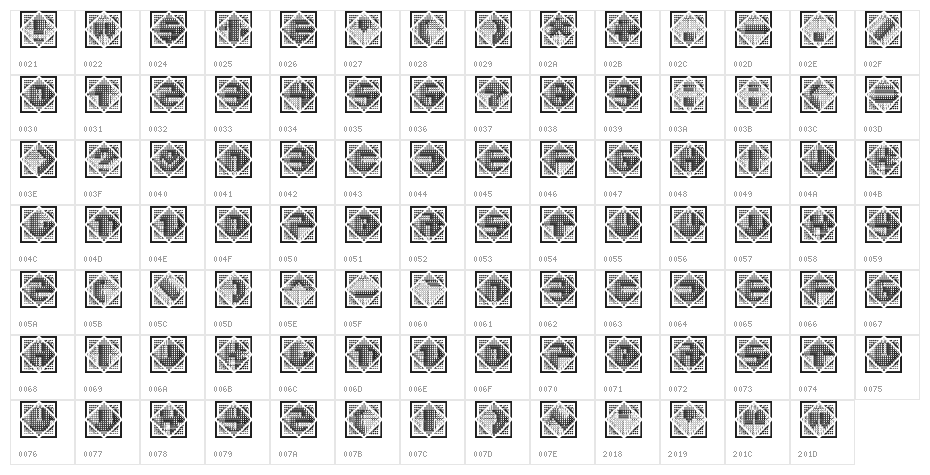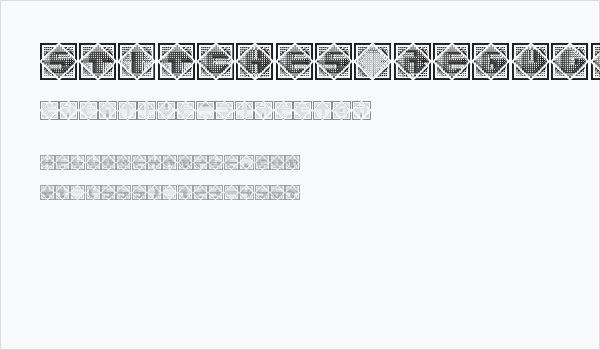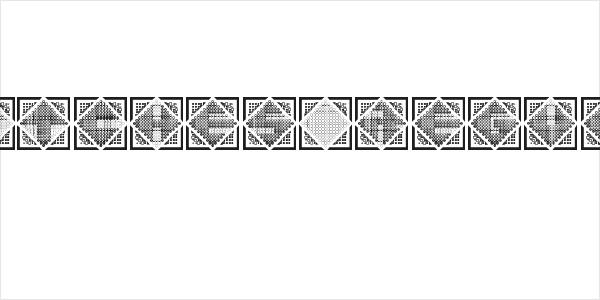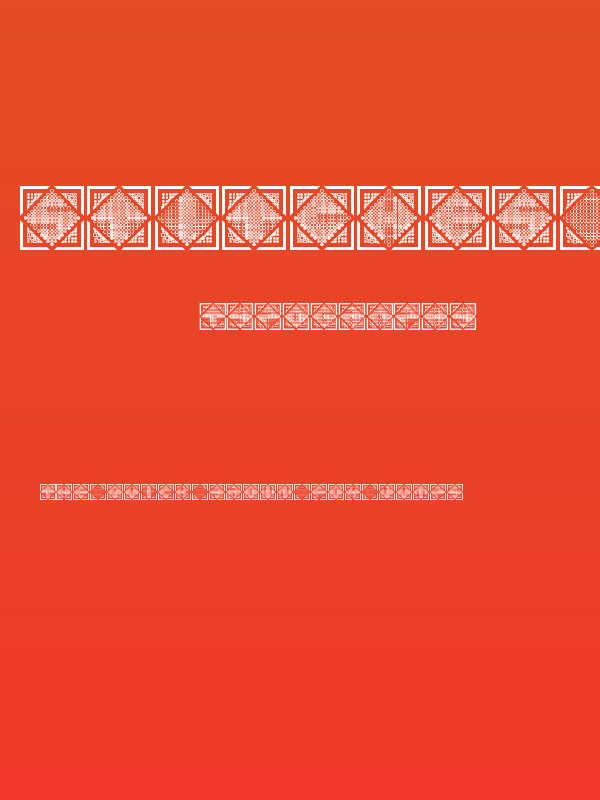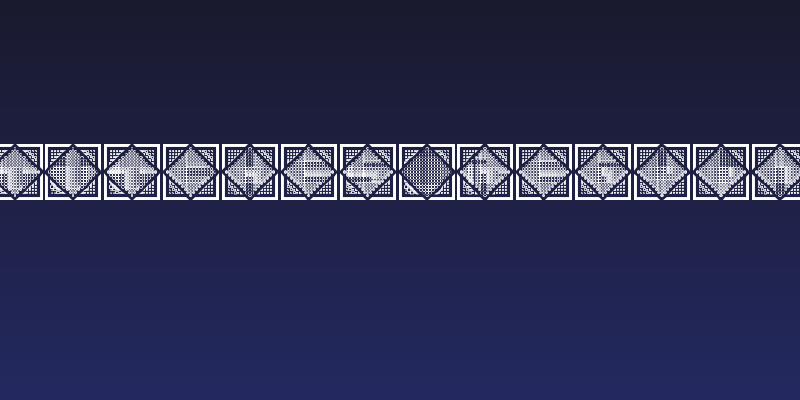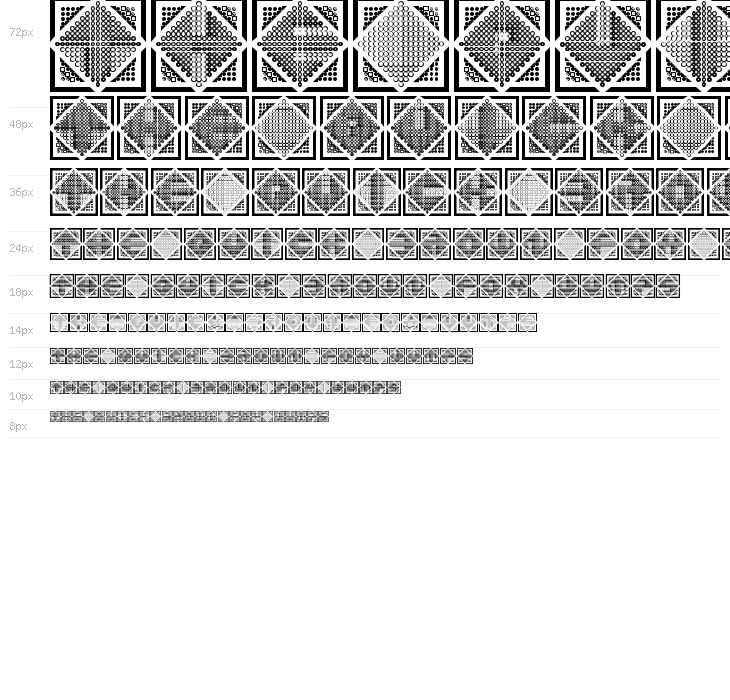
Stitches Regular Font
Stitches Regular Description
This design features a highly decorative and intricate pattern, resembling a series of stitched or woven elements. Each character is enclosed within a square frame, with a complex arrangement of lines and shapes that create a textured, almost fabric-like appearance. The overall aesthetic is reminiscent of traditional embroidery or cross-stitching, with a modern twist. The use of geometric patterns and symmetrical designs gives it a structured yet artistic feel, making it suitable for creative and ornamental purposes.
| Use Case | Artistic prints, decorative borders, textile patterns. |
| Proposed Projects | Ideal for decorative projects, textile design, artistic prints, or as a unique border in graphic design. |